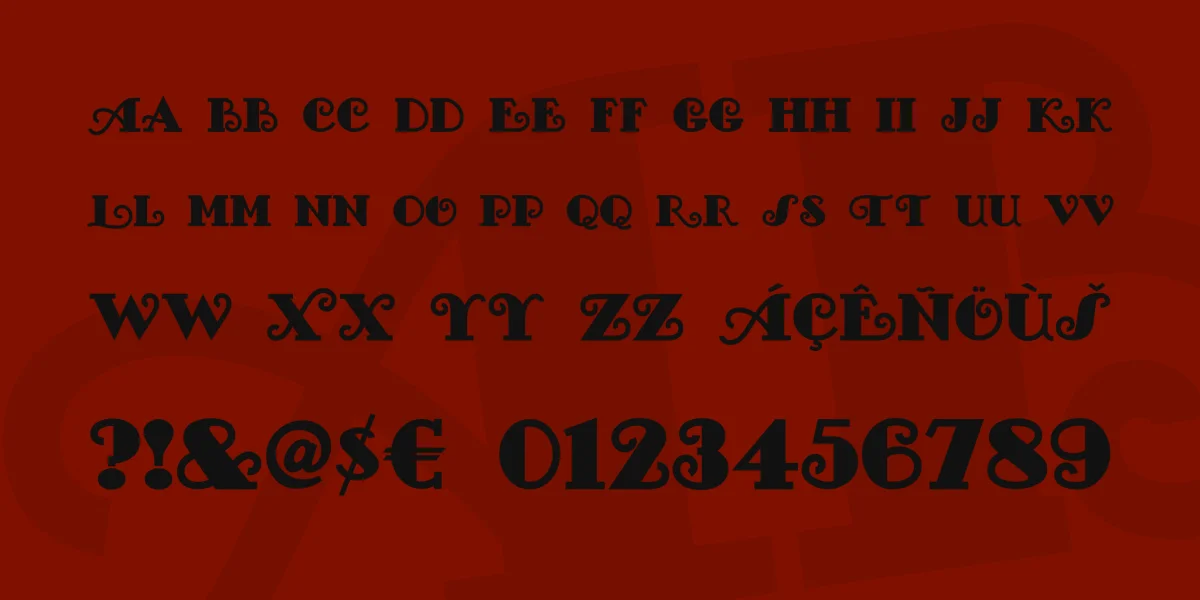
The erstwhile Wadsworth A. Parker seems to have specialized in fussy fonts — my humble offering, Metro Retro, based on his Modernistic typeface, is one example; so too is Gallia (1927), which provided the inspiration for this font. For this version, I beefed up Parker’s lines and eliminated the multiple inlines, so the final result has a little more authority and a lot fewer frills (despite its name).